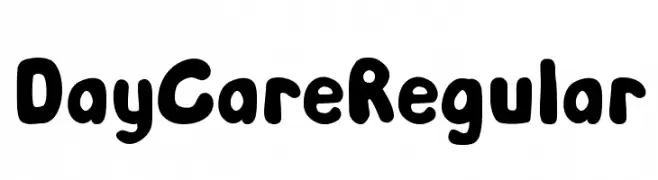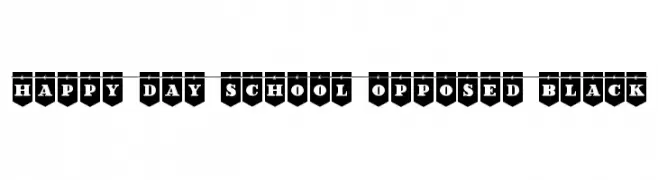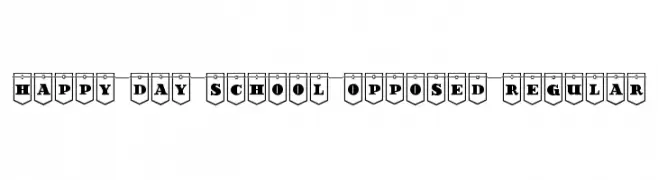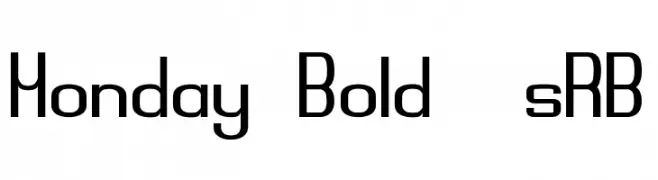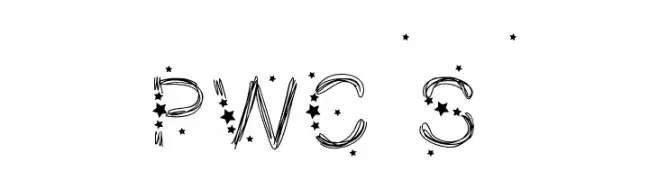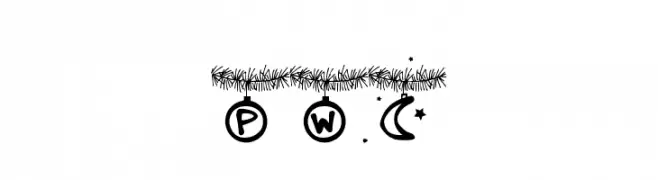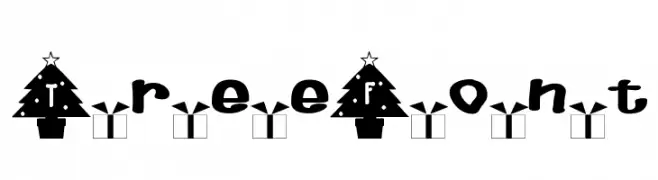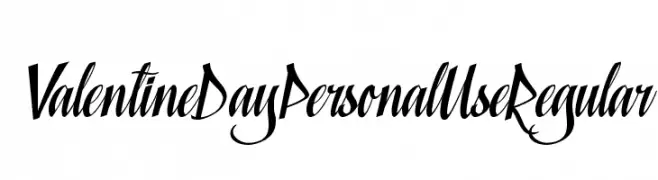
A playful, decorative font with characters framed in calendar-like boxes, perfect for fun designs.
A playful, rounded font with a friendly, balloon-like appearance.
A bold, outlined font with a playful and cartoonish style.
A festive font with Christmas tree-shaped letters and holiday-themed decorations.
A modern, geometric font with clean lines and rounded edges.
An elegant script font with flowing, cursive strokes and decorative flourishes.
A bold, playful font with characters in banner shapes, ideal for festive designs.
A bold, decorative font with characters enclosed in banner shapes, perfect for festive designs.